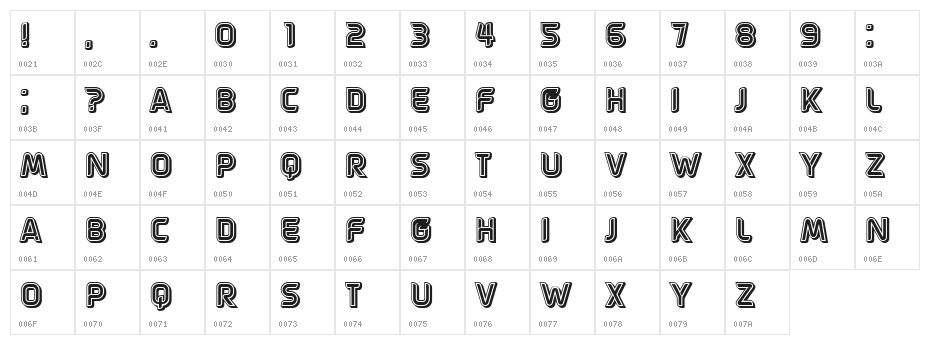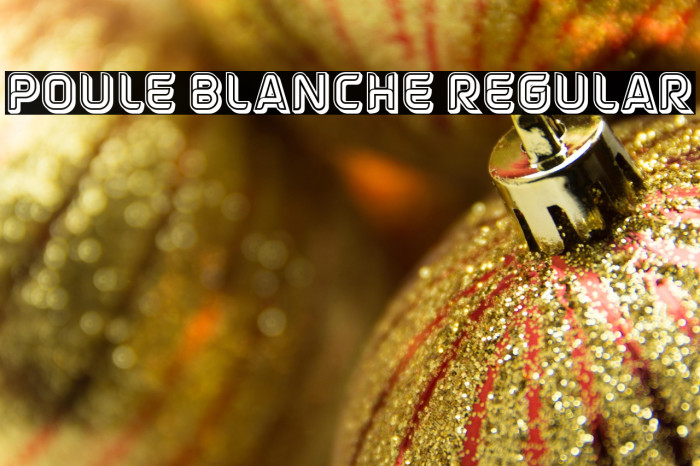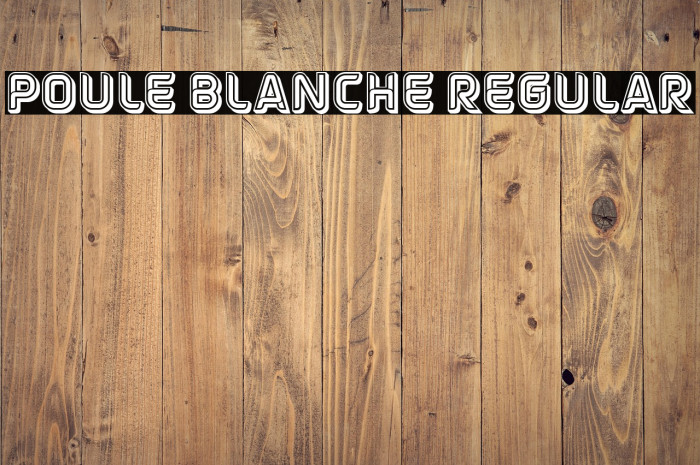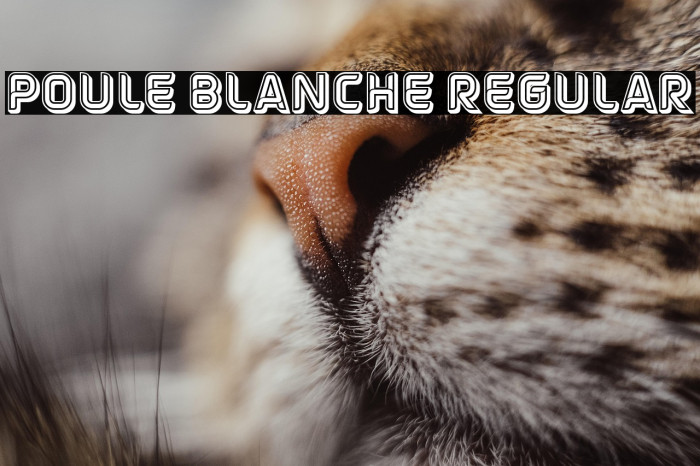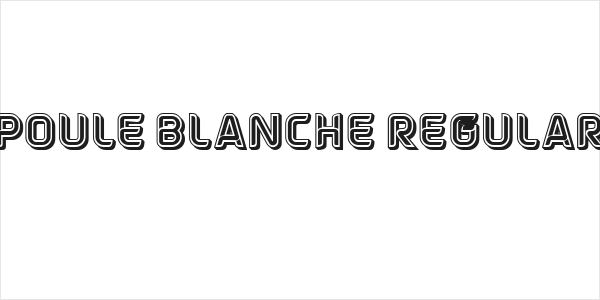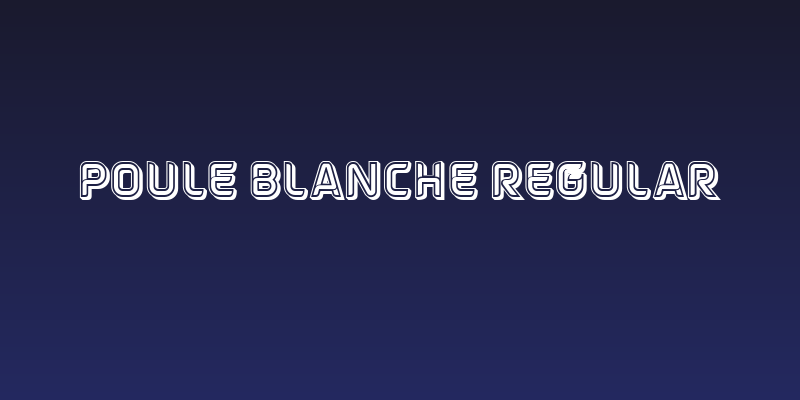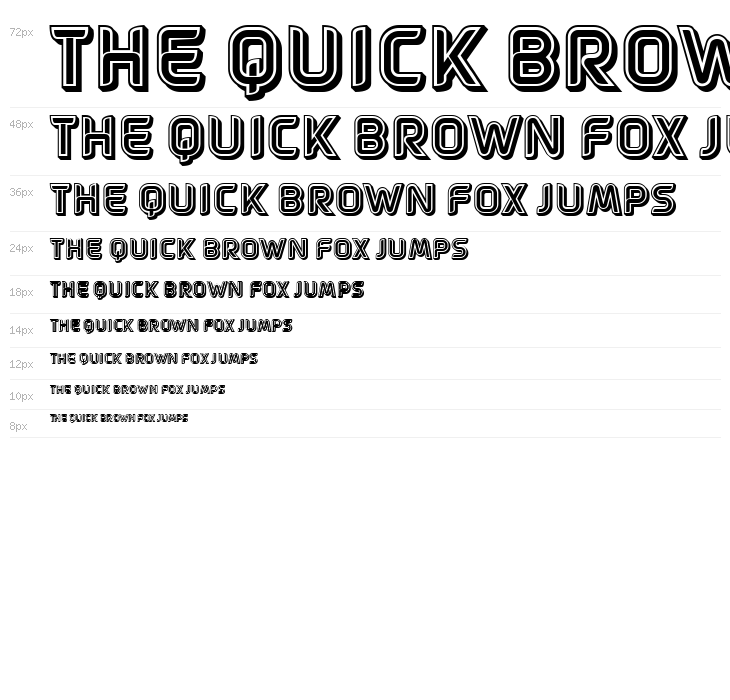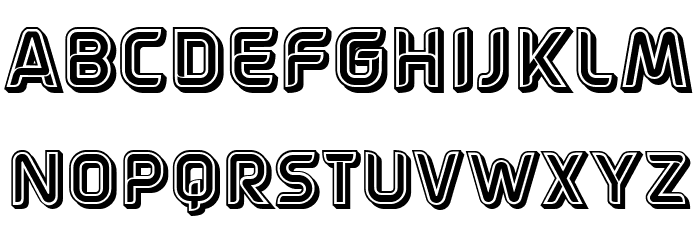
Poule Blanche Regular Font
Poule Blanche Regular Description
This font features a bold, outlined style that gives it a striking and modern appearance. The characters are uppercase and numerals, with a geometric structure that emphasizes clarity and readability. The double-line outline adds depth and a three-dimensional effect, making it ideal for attention-grabbing designs. The uniformity in the stroke width across all characters ensures a cohesive look, while the spacing between the outlines and the inner letter forms creates a visually appealing contrast. This font is perfect for projects that require a contemporary and impactful aesthetic.